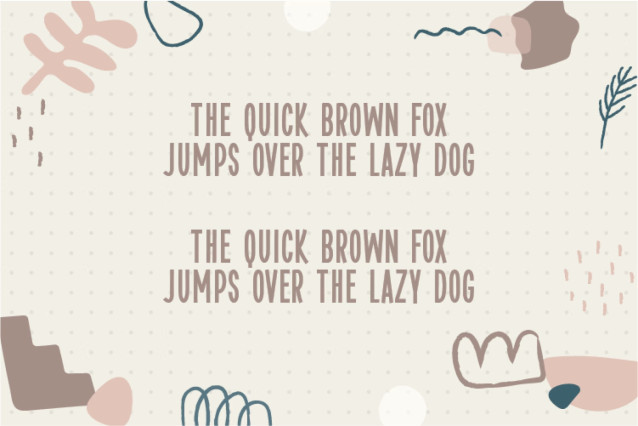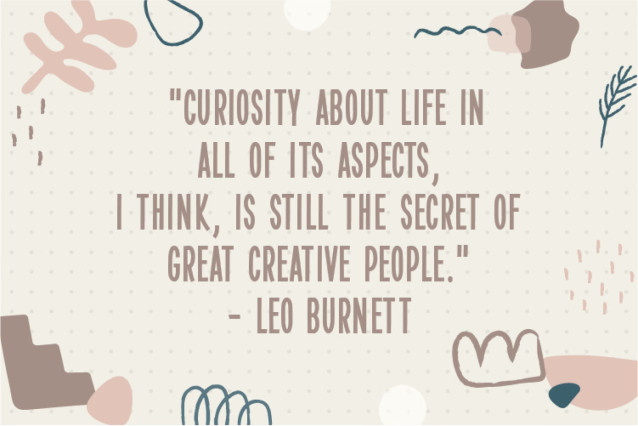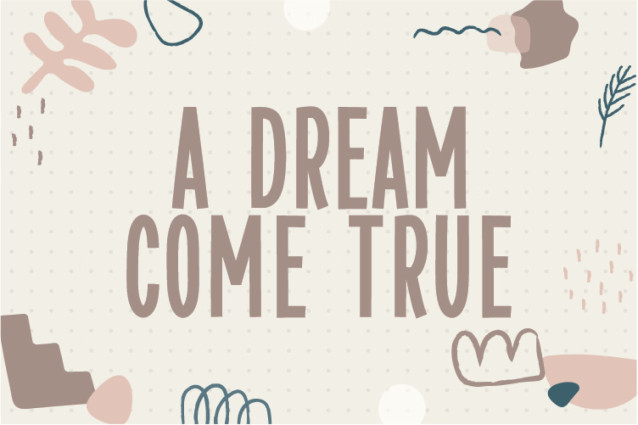
A Dream Come True Font
A Dream Come True is a natural and friendly handwritten font. Trendy and stylish, this font will elevate each of your creations.